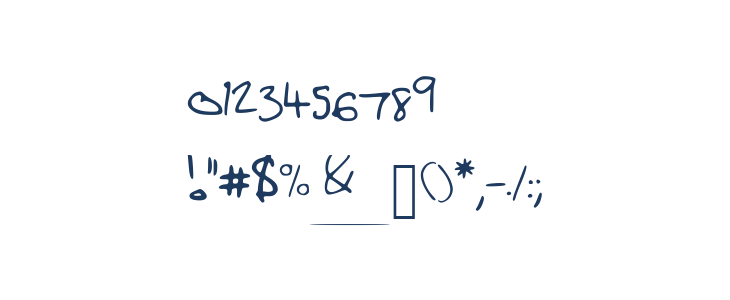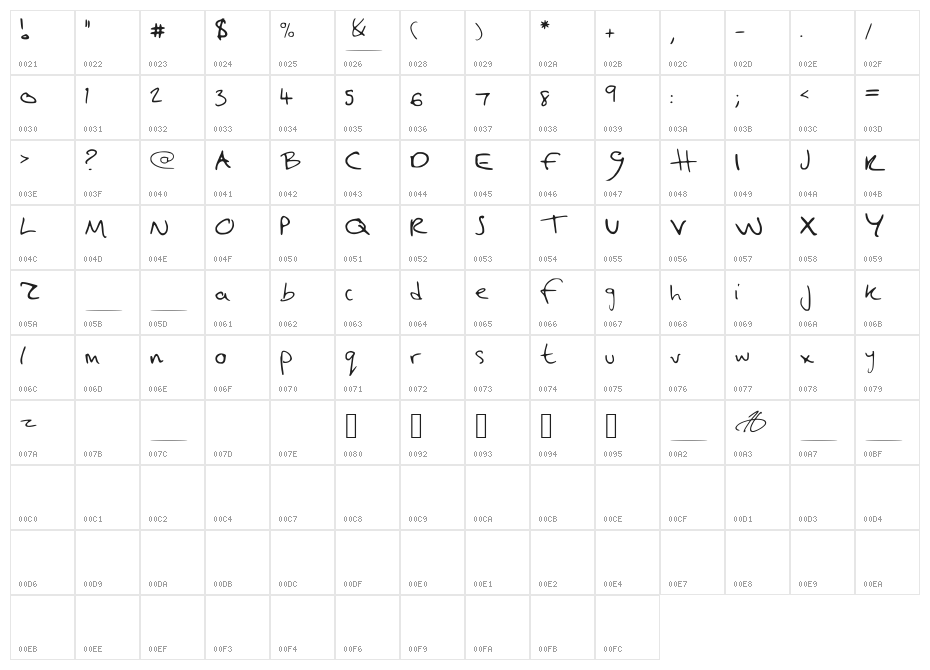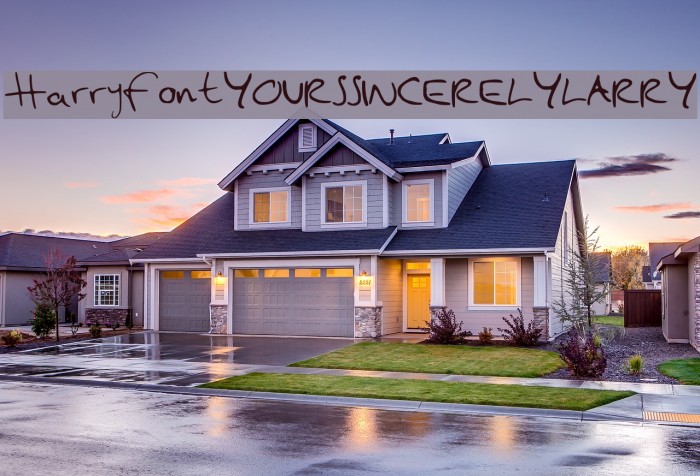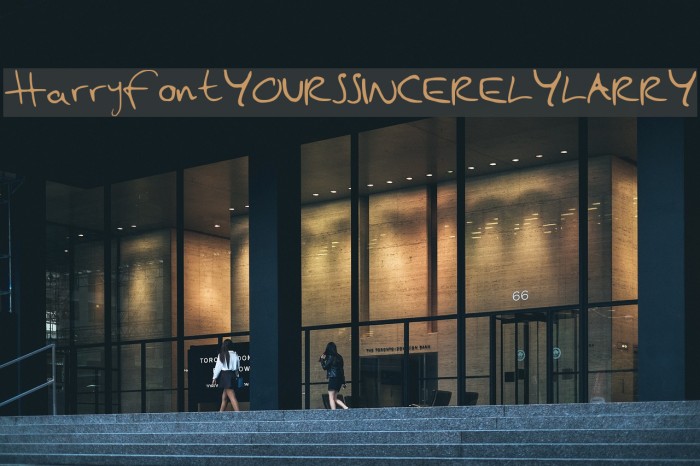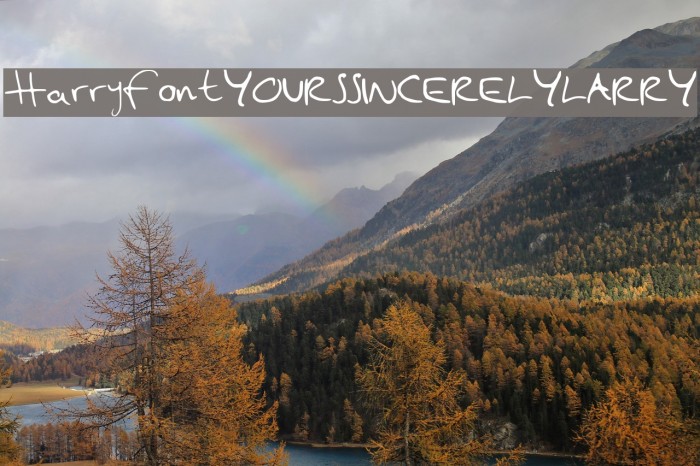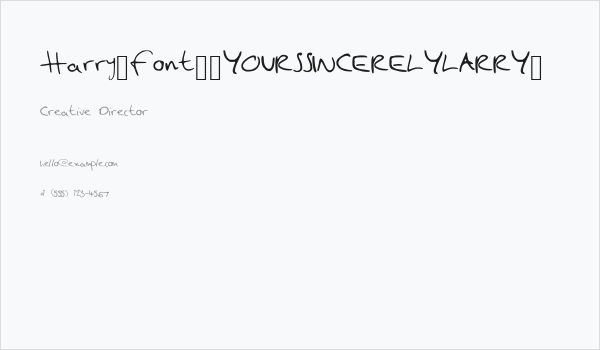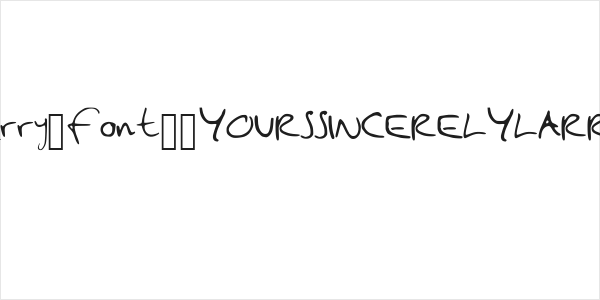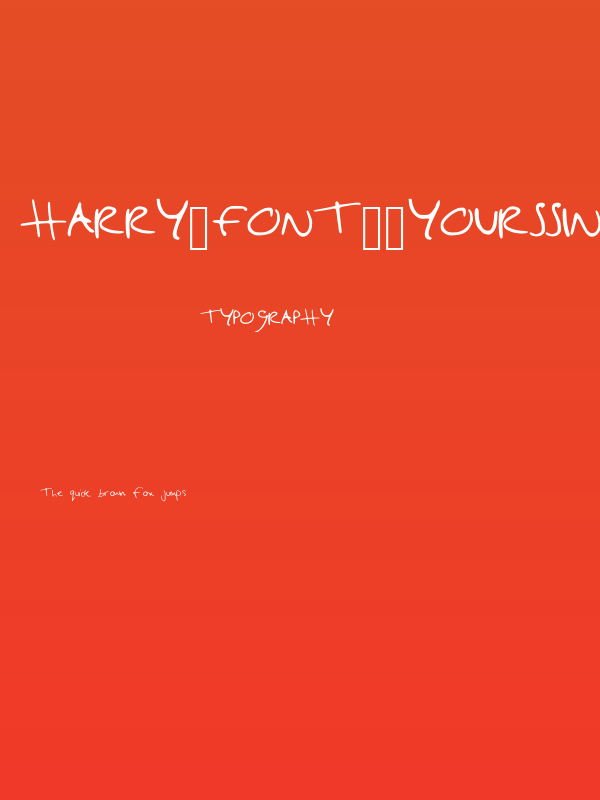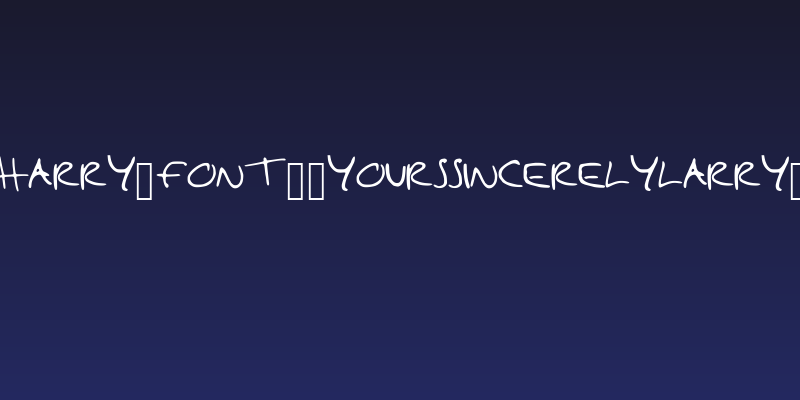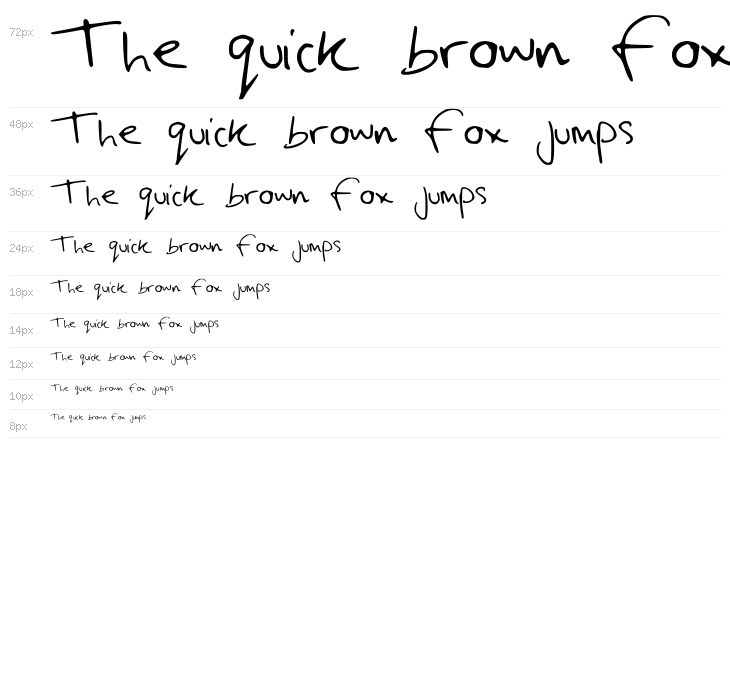
Harry_font__YOURSSINCERELYLARRY_ Font
Harry_font__YOURSSINCERELYLARRY_ Description
This font exudes a casual, handwritten style, characterized by its fluid and organic strokes. The letters are slightly irregular, giving it a personal and informal touch, reminiscent of a quick note or a personal letter. The uppercase and lowercase letters maintain a consistent style, with some playful variations in stroke width and angle. The numbers and special characters follow the same aesthetic, ensuring a cohesive look across all text. This font's charm lies in its ability to convey warmth and personality, making it ideal for projects that require a human touch.
| Use Case | Greeting cards, Personal notes, Informal invitations |
| Proposed Projects | Ideal for greeting cards, personal notes, informal invitations, and creative projects that require a human touch. |